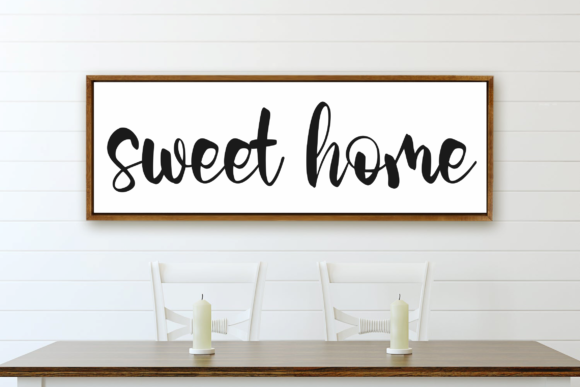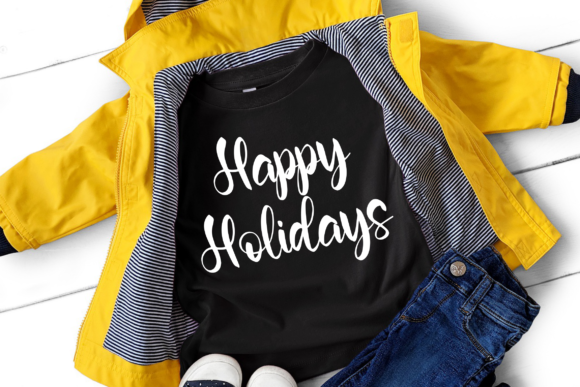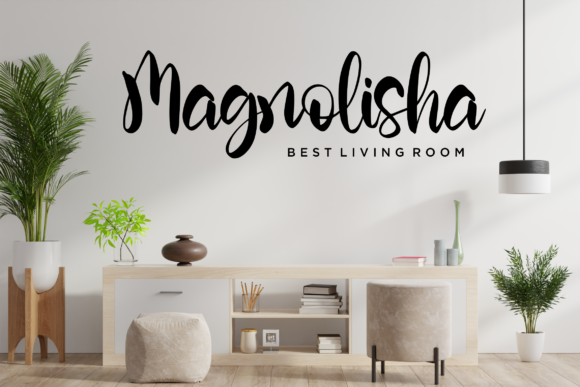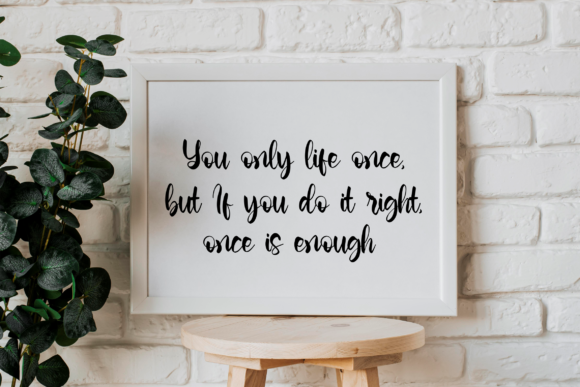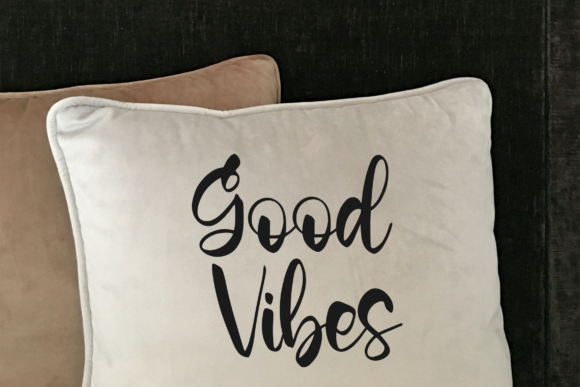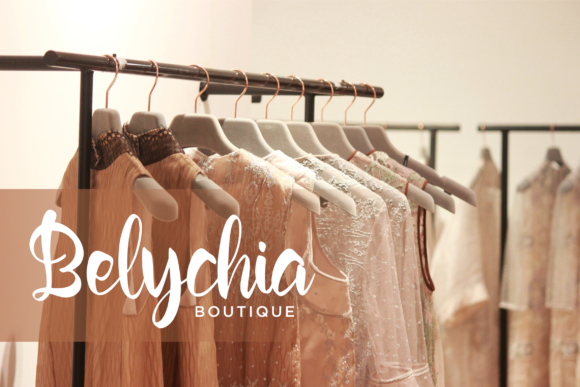
Bobbiewish Font: The Perfect Handwritten Font for Your Creative Projects
Bobbiewish is a gorgeous and trendy looking handwritten font that has been making waves in the design community. Whether you use it for cartoon related designs, children games, or just any creation that requires a lovely touch, this font will be an amazing choice. In this article, we’ll dive into the features and benefits of the Bobbiewish font, and explore how you can use it to elevate your designs.
What Makes Bobbiewish Font So Special?
The Bobbiewish font is a beautifully crafted handwritten font that exudes a sense of playfulness and charm. Its unique and elegant lettering style makes it perfect for a wide range of creative projects, from children’s books and games to branding and advertising materials. The font’s gorgeous and trendy look is sure to capture the attention of your audience and leave a lasting impression.
Key Features of Bobbiewish Font
- Handwritten style: The Bobbiewish font features a beautiful handwritten style that is both elegant and playful.
- Trendy look: The font’s trendy look makes it perfect for modern designs and creative projects.
- Cartoon and children-friendly: The font’s playful style makes it ideal for cartoon related designs and children’s games.
- Versatile: The Bobbiewish font can be used for a wide range of creative projects, from branding and advertising to packaging and more.
Benefits of Using Bobbiewish Font
Using the Bobbiewish font in your designs can have numerous benefits. Here are just a few:
- Adds a personal touch: The Bobbiewish font’s handwritten style adds a personal touch to your designs, making them more relatable and engaging.
- Creates a unique look: The font’s unique style helps to create a distinctive look that sets your designs apart from others.
- Perfect for kids and adults alike: The font’s playful style makes it perfect for designs aimed at kids, while its elegance makes it suitable for adult audiences as well.
- Easy to read: The Bobbiewish font is clear and easy to read, making it perfect for body text and headings.
How to Use Bobbiewish Font in Your Designs
Using the Bobbiewish font in your designs is easy. Here are a few tips to get you started:
- Pair it with other fonts: The Bobbiewish font pairs well with other fonts, such as sans-serif fonts like Arial or Helvetica.
- Use it for headings and titles: The font’s elegant style makes it perfect for headings and titles.
- Add some color: The Bobbiewish font looks great with bright and bold colors, making it perfect for designs that require a pop of color.
In conclusion, the Bobbiewish font is a gorgeous and trendy looking handwritten font that is perfect for a wide range of creative projects. Its unique and elegant lettering style makes it ideal for cartoon related designs, children games, and any creation that requires a lovely touch. With its versatility, ease of use, and range of benefits, the Bobbiewish font is a must-have for designers and crafters looking to add a personal touch to their designs.